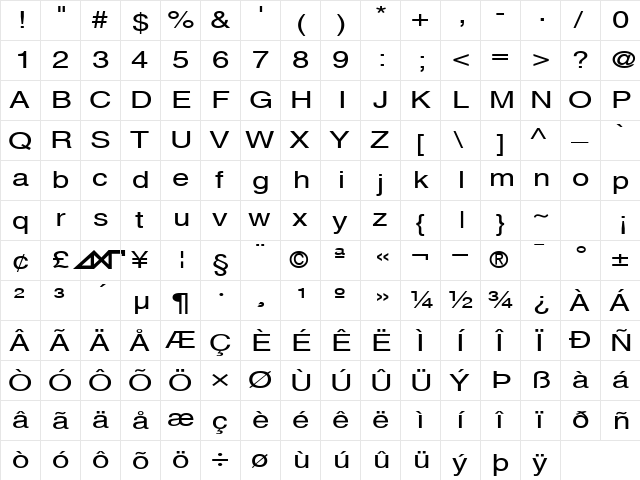
Sveningsson Regular
Design Context for Sveningsson Typeface
Sveningsson is a composed and adaptable typeface that performs quietly and consistently across a wide range of design contexts.
Pro Tip: Use Sveningsson in both headline and body roles to test its range before committing to a single application.